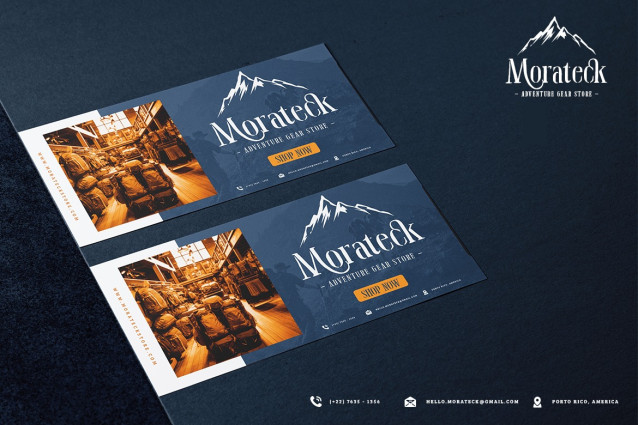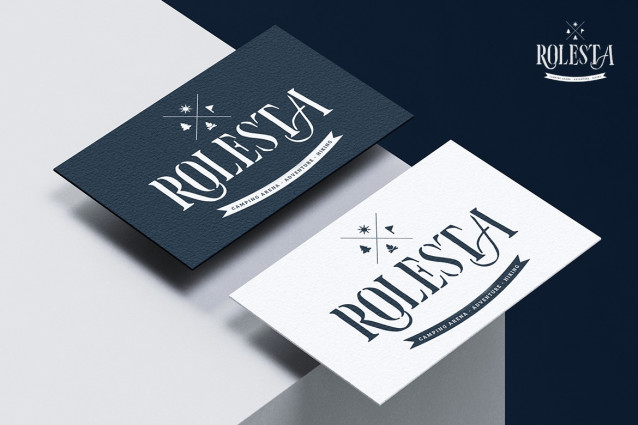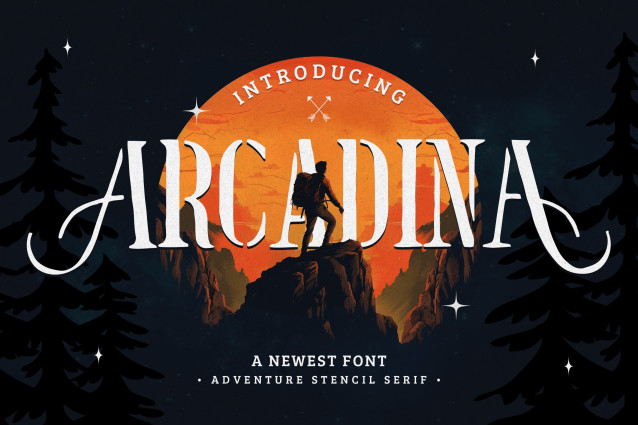
Arcadina Font
Arcadina Font is an adventurous stencil serif font that combines bold elegance with rugged charm. Inspired by vintage travel posters and expedition-style typography, Arcadina features cut-out stencil details, sharp serifs, and dynamic letterforms that bring a spirit of exploration to your designs. Perfect for headlines, logos, posters, book covers, and packaging, this typeface is designed to make a strong, stylish impression. Arcadina is ideal for creatives looking to evoke a sense of bold discovery and classic sophistication in their work.